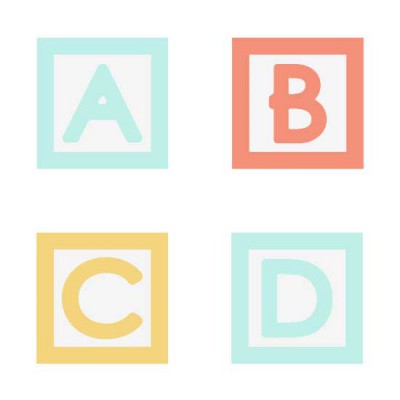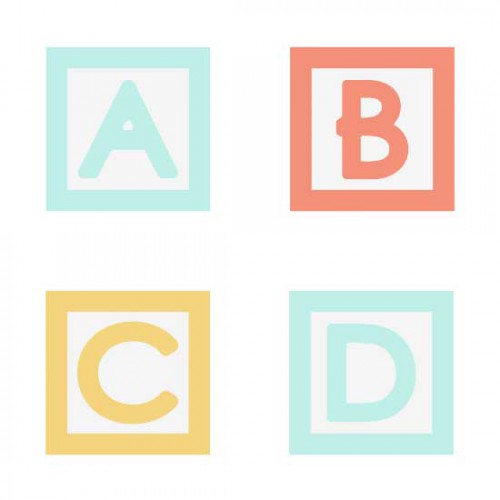
Peek-a-Boo Alpha - SV
Possibly one of the single most powerful icons of all things baby...the baby block. What better way to add a word or two to announcements, memory pages or invitations celebrating this magical time than with an alphabet created with baby blocks?! We hope you enjoy all your creative projects using the Peek-a-Boo Alphabet!